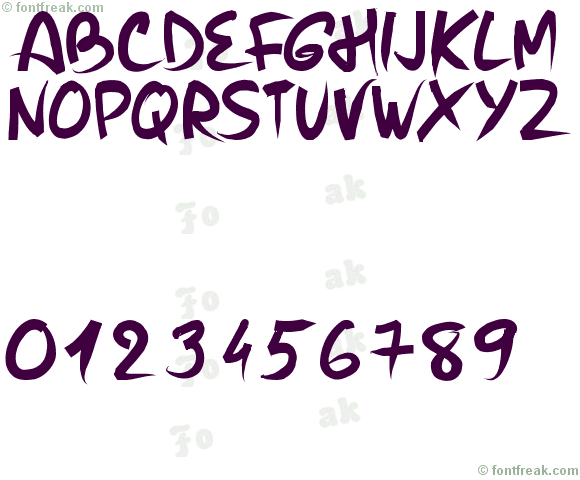
PW Brush Me
The PW Brush Me font by Peax Webdesign is a striking script font that captures the essence of handwritten artistry with a modern twist. This freeware typeface features bold, expressive brush strokes that give it a dynamic and energetic feel. The stroke weight varies throughout the characters, creating a sense of movement and spontaneity that is often sought after in contemporary design. With a moderate amount of contrast and slightly loose spacing, PW Brush Me provides a friendly and approachable look, making it ideal for a range of creative applications.
One of the best uses for the PW Brush Me font is in wedding invitations, where its playful yet elegant style can add a personal touch to any event. Additionally, this font shines in the realm of restaurant menus, where it can convey a sense of warmth and hospitality. It is also suitable for promotional materials, such as flyers or posters for local events, as well as social media graphics that aim to engage audiences with a lively visual presence. Graphic designers, small business owners, and content creators will find this font particularly appealing for projects that require a distinctive, hand-crafted aesthetic.
What sets the PW Brush Me font apart is its versatility and unique character. It blends a casual handwritten style with a professional finish, allowing it to work seamlessly across various mediums. Whether you're looking to add flair to your branding or create memorable invitations, the PW Brush Me font free download offers an excellent solution for those wanting to inject creativity into their designs. Its exceptional balance between form and function makes it a standout choice in the world of typography.